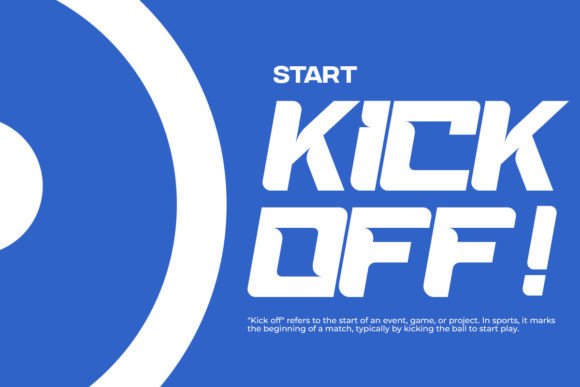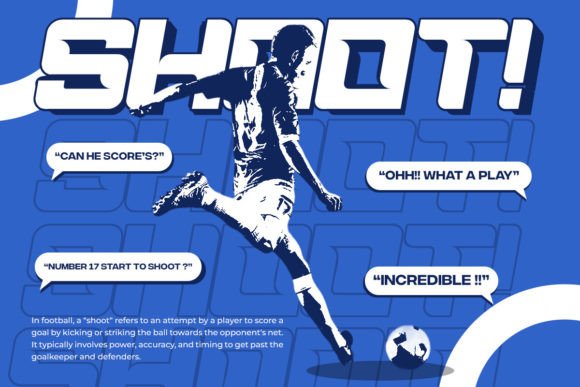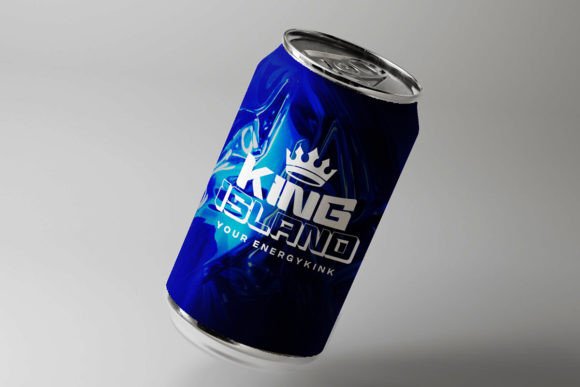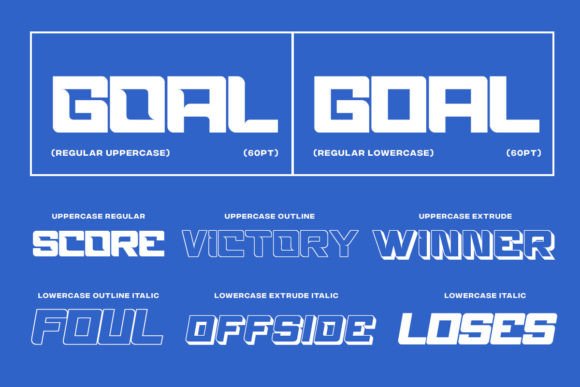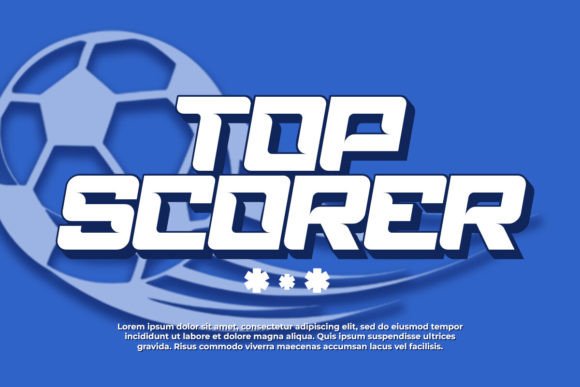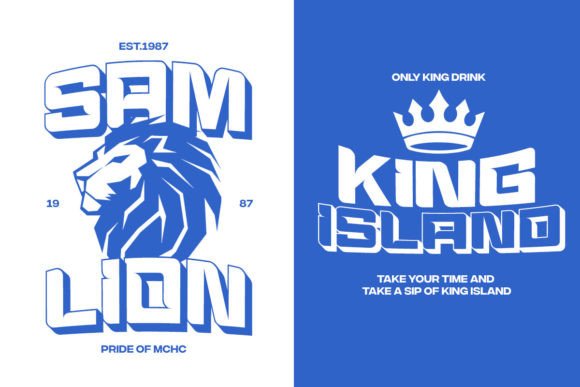
Introducing Football Stage Font: The Ultimate Choice for Sports Designs
Are you a designer or crafter looking for the perfect font to elevate your sports-related projects? Look no further than Football Stage Font, a bold and modern sans serif font designed specifically for sports enthusiasts. With its clean lines, strong letters, and powerful feel, this font is ideal for creating stunning team logos, jerseys, sports posters, and more.
What Makes Football Stage Font Stand Out?
Football Stage Font boasts a unique combination of characteristics that make it the perfect choice for sports designs. Its bold and modern sans serif design ensures that your text stands out, while its clean lines and strong letters guarantee excellent readability, even at smaller sizes. This font is specifically crafted to evoke a sense of energy, power, and dynamism, making it perfect for football and other athletic designs.
Key Features of Football Stage Font
- Bold and Modern Design: Football Stage Font features a bold and modern sans serif design that’s perfect for making a statement.
- Clean Lines and Strong Letters: The font’s clean lines and strong letters ensure excellent readability, making it ideal for use on team logos, jerseys, and sports posters.
- Powerful and Energetic Feel: Football Stage Font has a powerful and energetic feel that’s perfect for football and other athletic designs.
- Versatile: This font is versatile and can be used for a wide range of sports-related projects, from team logos and jerseys to sports posters and more.
Why Choose Football Stage Font?
There are many fonts available for sports designs, but Football Stage Font stands out from the rest. Here are just a few reasons why:
- Unique Design: Football Stage Font features a unique design that’s specifically crafted for sports enthusiasts.
- High Readability: The font’s clean lines and strong letters ensure high readability, even at smaller sizes.
- Perfect for Designers and Crafters: This font is perfect for designers and crafters who want to create stunning sports-related projects.
How to Use Football Stage Font
Using Football Stage Font is easy. Here are just a few ways you can incorporate it into your designs:
- Team Logos: Use Football Stage Font to create stunning team logos that will make your team stand out.
- Jerseys: Add a professional touch to your jersey designs with Football Stage Font.
- Sports Posters: Create eye-catching sports posters with Football Stage Font.
- Social Media Graphics: Use Football Stage Font to create engaging social media graphics that will grab the attention of sports enthusiasts.
Tips and Tricks for Getting the Most Out of Football Stage Font
Here are just a few tips and tricks for getting the most out of Football Stage Font:
- Experiment with Different Sizes: Don’t be afraid to experiment with different sizes to find the perfect fit for your design.
- Pair with Other Fonts: Football Stage Font pairs well with other fonts, so don’t be afraid to get creative and try out different combinations.
- Use in Combination with Images: Use Football Stage Font in combination with images to create stunning visuals that will grab the attention of sports enthusiasts.
Football Stage Font is the ultimate choice for sports designs. With its bold and modern sans serif design, clean lines, strong letters, and powerful feel, this font is perfect for creating stunning team logos, jerseys, sports posters, and more. Whether you’re a designer or crafter, Football Stage Font is the perfect addition to your font library.